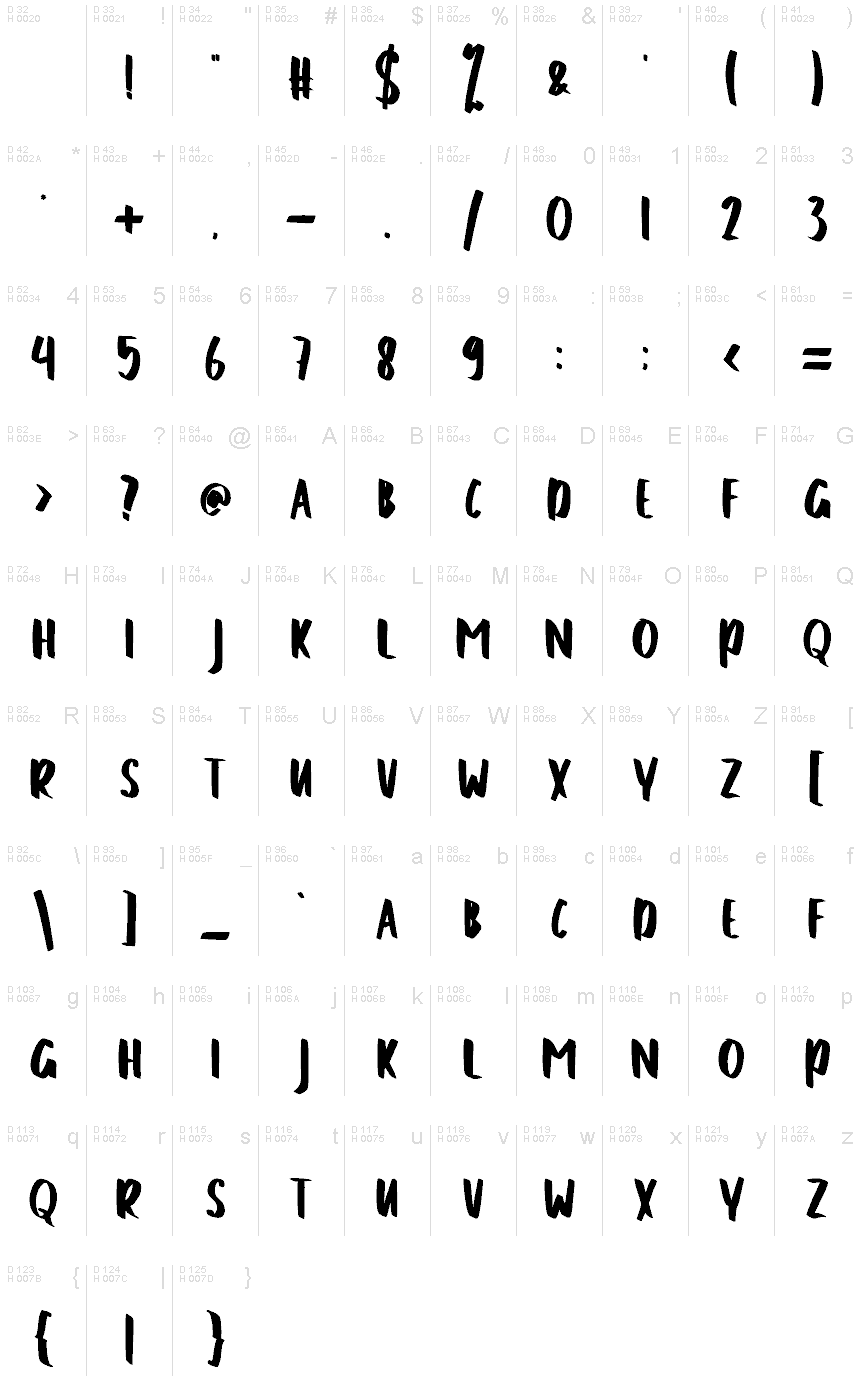
Posibles
Posibles font is a condensed handwritten font from Skiiller Studio. The typeface is modern, casual, expressive, and energetic; suitable for any of your projects that require a natural human touch to them. It is achieved mostly with the uneven baselines and thickness that make letter strokes look creative, spontaneous, and imperfect.
The free font allows you to achieve a variety of designs in different domains and styles. Use it for branding ideas (logos) or packaging designs especially for beauty products like perfumes or body lotions. Write jewelry store signs, add text on book covers and posters along with magazines & newspaper ads. Purposely messy graphic design projects are encouraged as well!